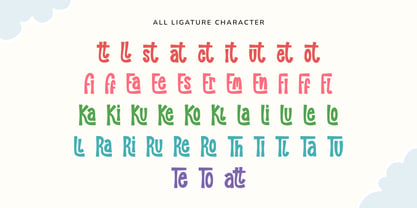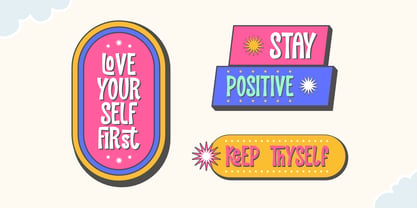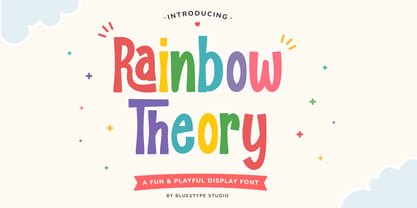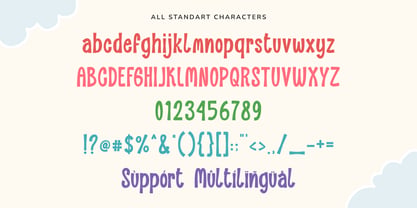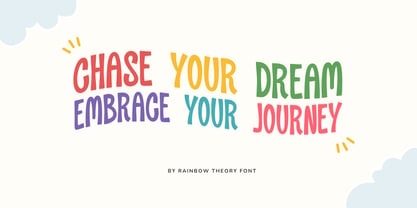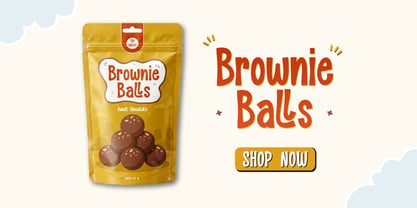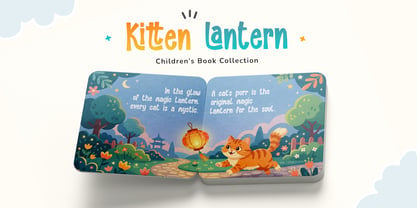
Rainbow Theory
by Bluestype Studio
Meet Rainbow Theory, a vibrant and playful display font designed to bring modern energy to your creative projects. Striking the perfect balance between fun, whimsical charms and sleek, contemporary aesthetics, Rainbow Theory is engineered for today’s trendsetting design landscape. Whether you are aiming for a bold millennial look or a youthful, high-energy vibe, this font adapts effortlessly to current visual trends.
Designers: Jefri Dwi Alfatah
Foundry: Bluestype Studio